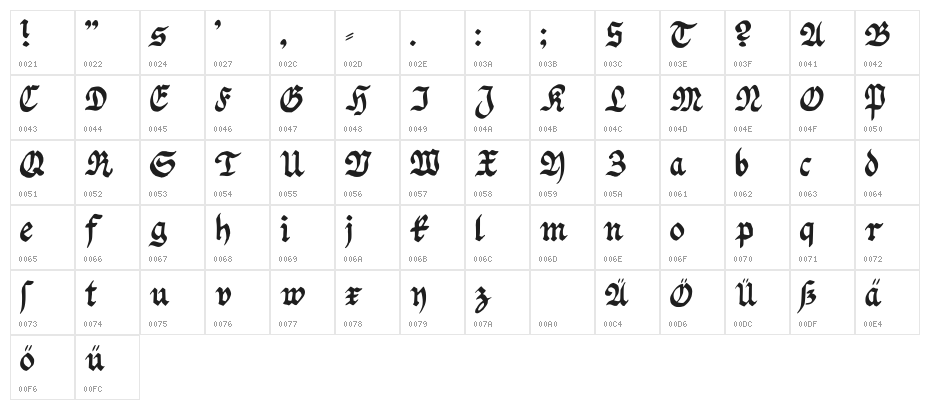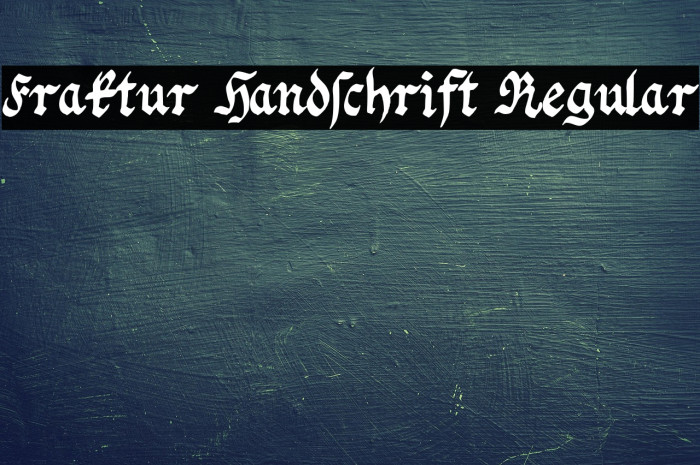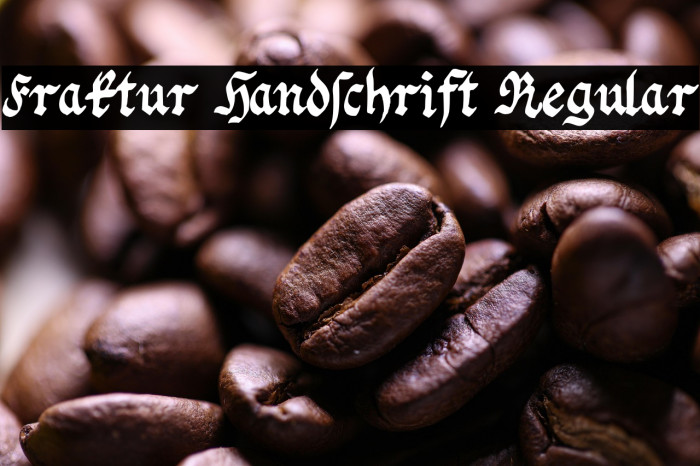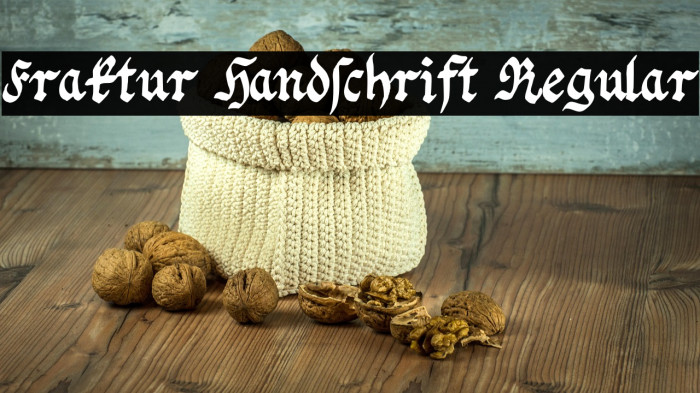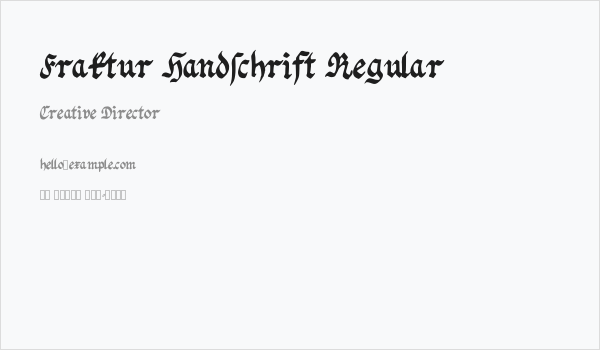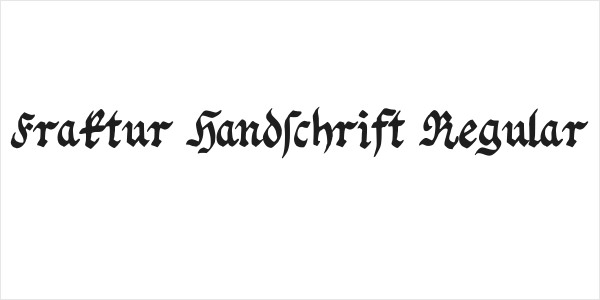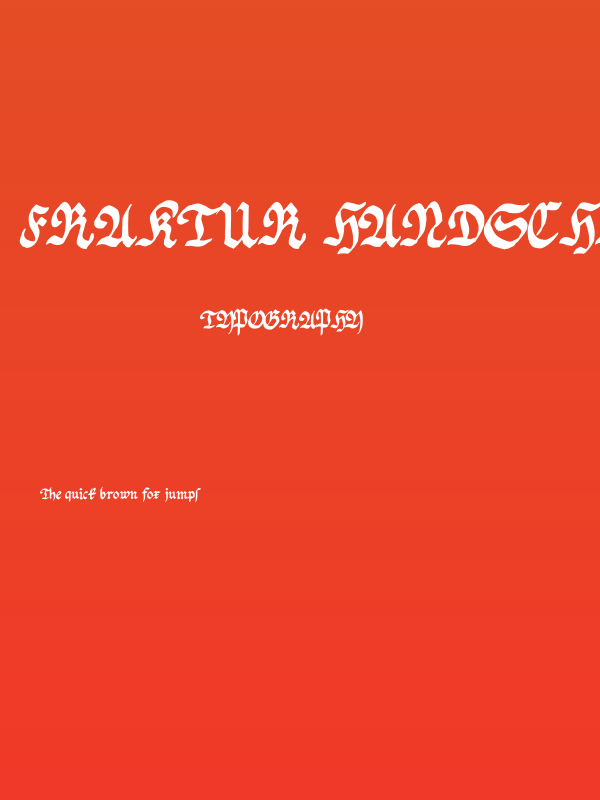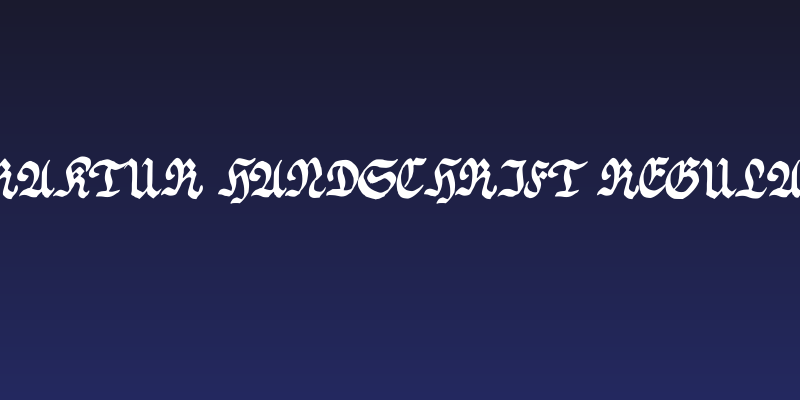
Fraktur Handschrift Regular Font
Fraktur Handschrift Regular Description
This font embodies the traditional elegance of blackletter script, characterized by its intricate and ornate letterforms. The strokes are bold and angular, with a distinct medieval aesthetic that evokes a sense of history and tradition. The uppercase letters are particularly elaborate, featuring sharp serifs and decorative flourishes. The lowercase letters maintain a consistent style, with a slightly more subdued design that complements the uppercase. The numerals and special characters are crafted with the same attention to detail, ensuring a cohesive appearance across all elements. This font is ideal for projects that require a touch of classic sophistication and historical charm.
| Proposed Projects | Suitable for historical documents, wedding invitations, book covers, and branding that requires a classic touch. |